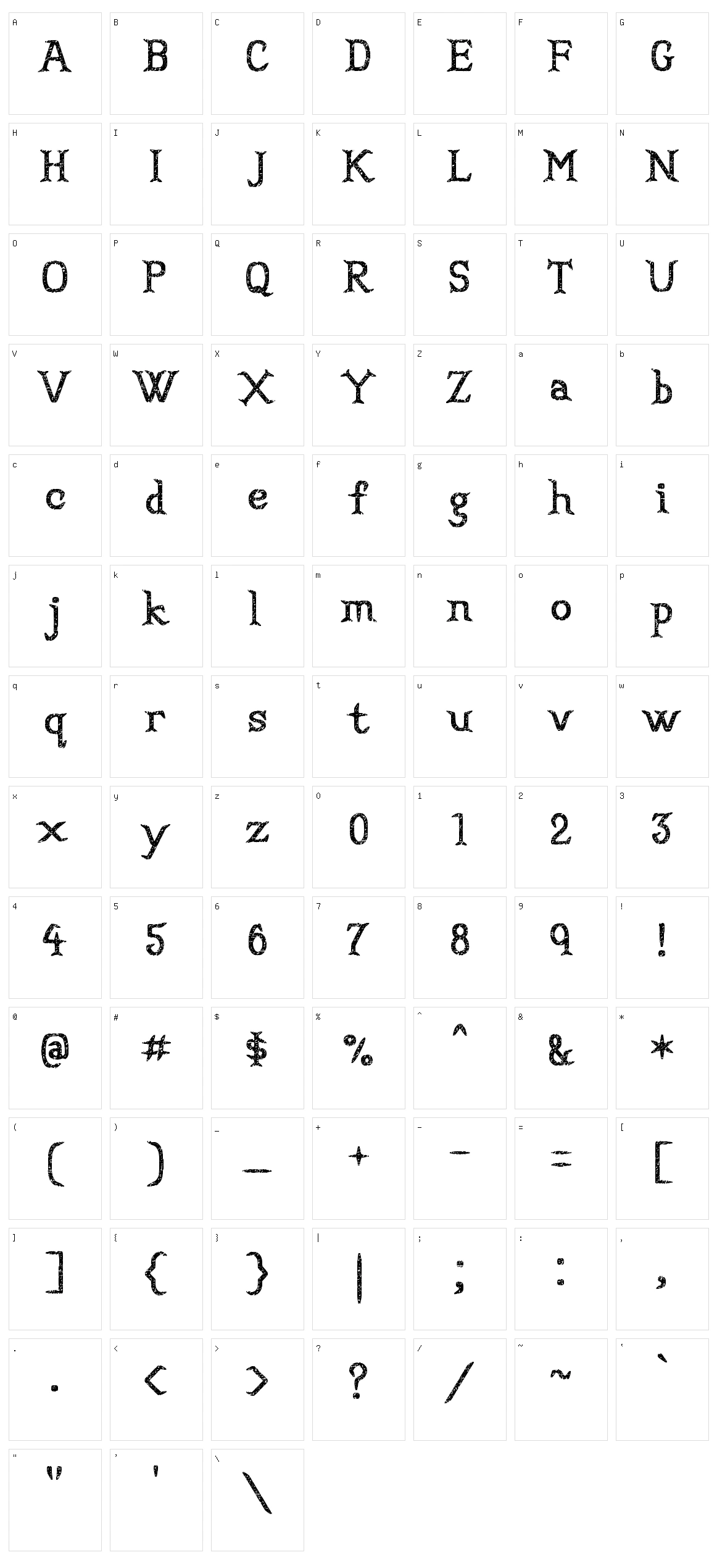
The free font Convincing Pirate is carefully designed by Walter E Stewart, showcasing a thoughtful balance of creativity and usability and falls under the Eroded font style. When you download the ZIP file, it contains only 513.44 KB of font files, making it lightweight and quick to download. Please review the license details below to understand permitted usage and distribution rights. If license information is not available, we recommend using this font for personal projects only or contacting the author directly for commercial usage permissions.